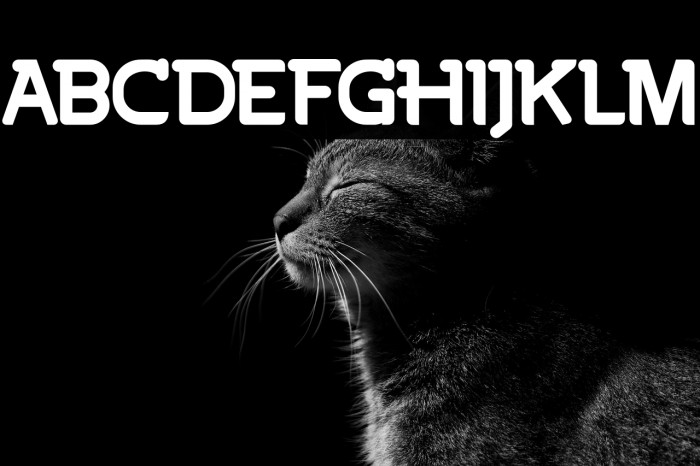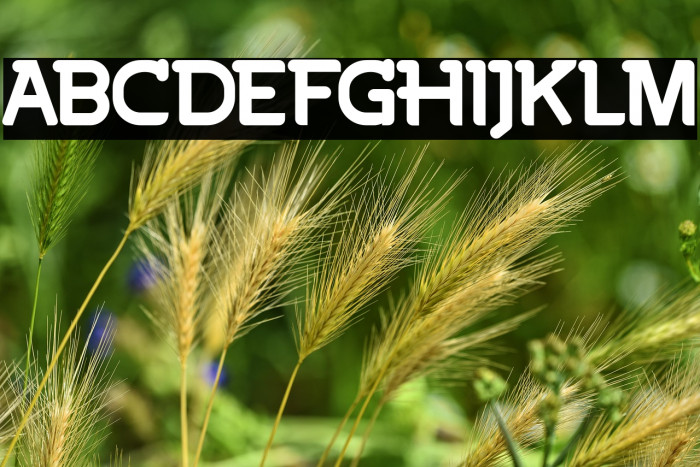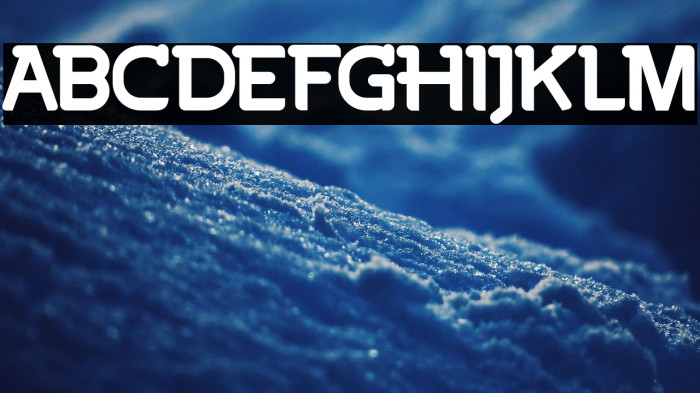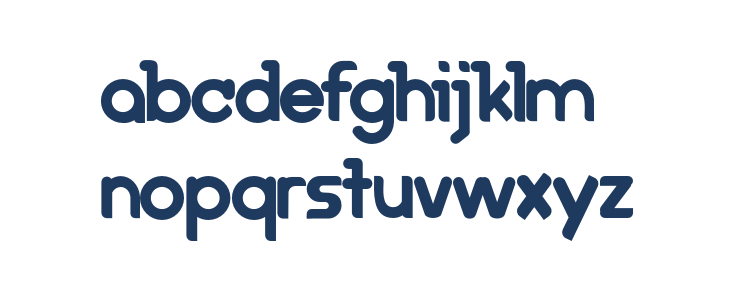
BigoteFREE Font
BigoteFREE Description
This font features a bold and playful design with rounded edges and a slightly condensed form. The characters are uniformly thick, giving it a strong presence and making it highly legible. The rounded terminals and consistent stroke width contribute to a friendly and approachable appearance. It is well-suited for projects that require a modern yet whimsical touch. The font's style is versatile enough to be used in various contexts, from children's books to branding materials that aim to convey a sense of fun and creativity.